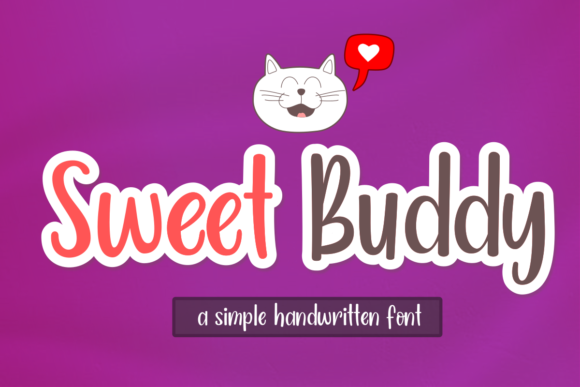
Introducing Sweet Buddy Font - The Enchanting Script Font That Will Ignite Your Creativity!
Embark on a delightful typographic journey with Sweet Buddy Font, a captivating script font that exudes charm and playfulness. This meticulously crafted font, brought to life by the talented Deedeetype, possesses a unique blend of elegance and whimsy that will transform your creative projects into captivating masterpieces.
Sweet Buddy Font's delightful curves and charmingly rounded edges evoke a sense of warmth and approachability, making it the perfect choice for a wide range of design applications. Whether you're crafting enchanting book covers, designing eye-catching logos, or creating heartfelt invitations, this versatile font will effortlessly add a touch of magic to your creations.
Immerse yourself in the world of Sweet Buddy Font and discover its boundless possibilities. Let your imagination soar as you explore its diverse character set, complete with uppercase and lowercase letters, numerals, and a delightful selection of punctuation marks, each meticulously designed to complement the font's playful personality.
With Sweet Buddy Font, the ordinary becomes extraordinary. Embrace the joy of typography and let your creativity flourish as you weave enchanting stories through captivating designs. Experience the magic of Sweet Buddy Font and embark on a journey of artistic expression that will leave a lasting impression.